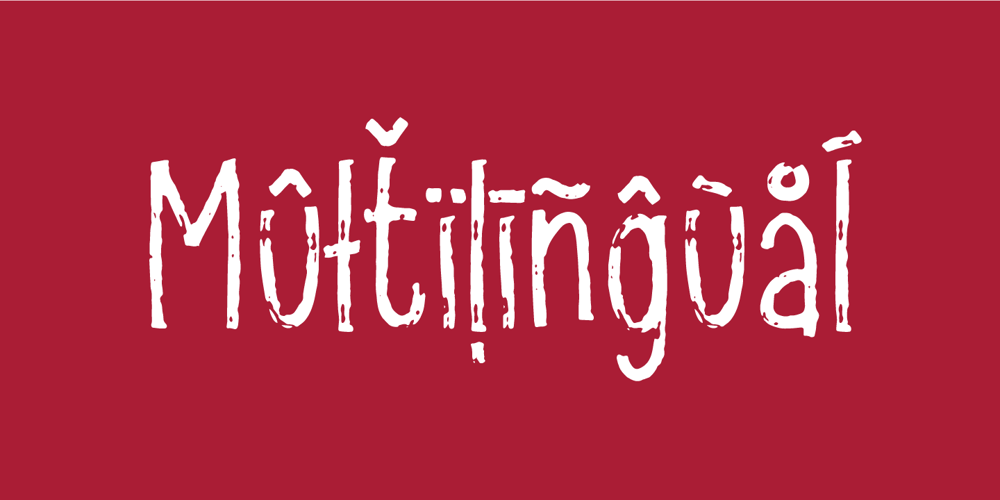
Identity Font Family was designed by published by Bogstav. Identity contains 2 styles and family package options. A handmade and slightly worn sans. Although it may look like it was made in Photo Shop, I can tell you that it was not! Ahem … Okay … I added some digital roughness to the font – but I kept it in the handmade “spirit” ๐ Comes with ligature substitution for double letters and has multilingual support!